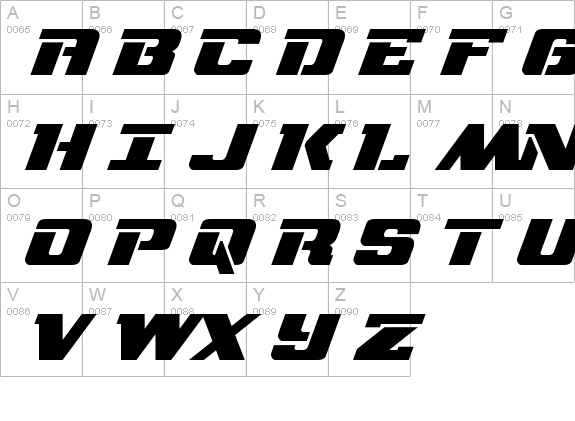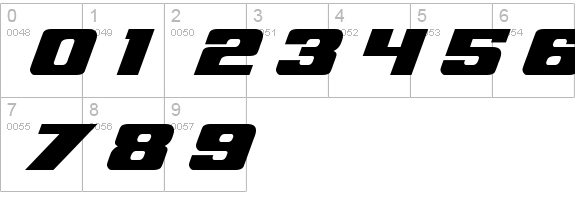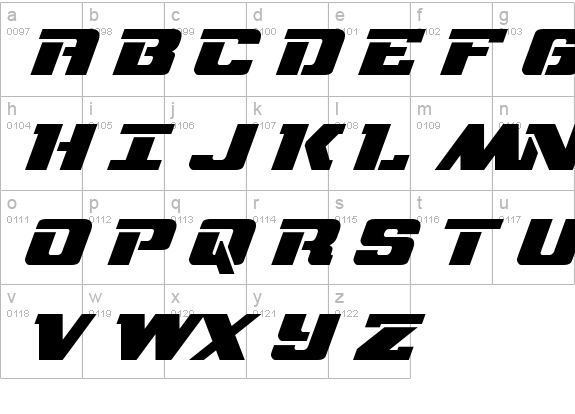
The NFL RedZone font is a striking and bold typeface designed specifically for capturing the essence of the exhilarating and fast-paced world of football. With its sleek lines and dynamic curves, this font exudes energy and excitement, perfectly mirroring the thrilling moments that unfold on the field. Featuring a unique combination of sharp edges and smooth contours, the NFL RedZone font commands attention and demands to be noticed. Its distinctive letterforms embody the spirit of competition and the relentless pursuit of victory, making it an ideal choice for sports-related designs, branding, and promotional materials. One of the standout features of the NFL RedZone font is that it is available for free download at FontsMarket.com. This means that designers, enthusiasts, and football fans alike can freely access and utilize this incredible font without any barriers. Whether you are creating posters, banners, websites, or social media posts, the NFL RedZone font is the perfect tool to elevate your designs and convey the excitement of the game. The NFL RedZone font is a versatile typeface that offers various weights and styles, allowing for flexibility and customization in design projects. From bold headlines to attention-grabbing text overlays, this font empowers you to create captivating visuals that capture the adrenaline-fueled moments of football and engage your audience. So, whether you are a graphic designer looking to add a touch of intensity to your creations or a football enthusiast wanting to express your passion through typography, the NFL RedZone font is the ideal choice. And with its availability for free download at FontsMarket.com, you can easily access this remarkable font and take your designs to the next level. Embrace the power of football and let the NFL RedZone font be your ultimate tool for creating impactful and unforgettable visuals.